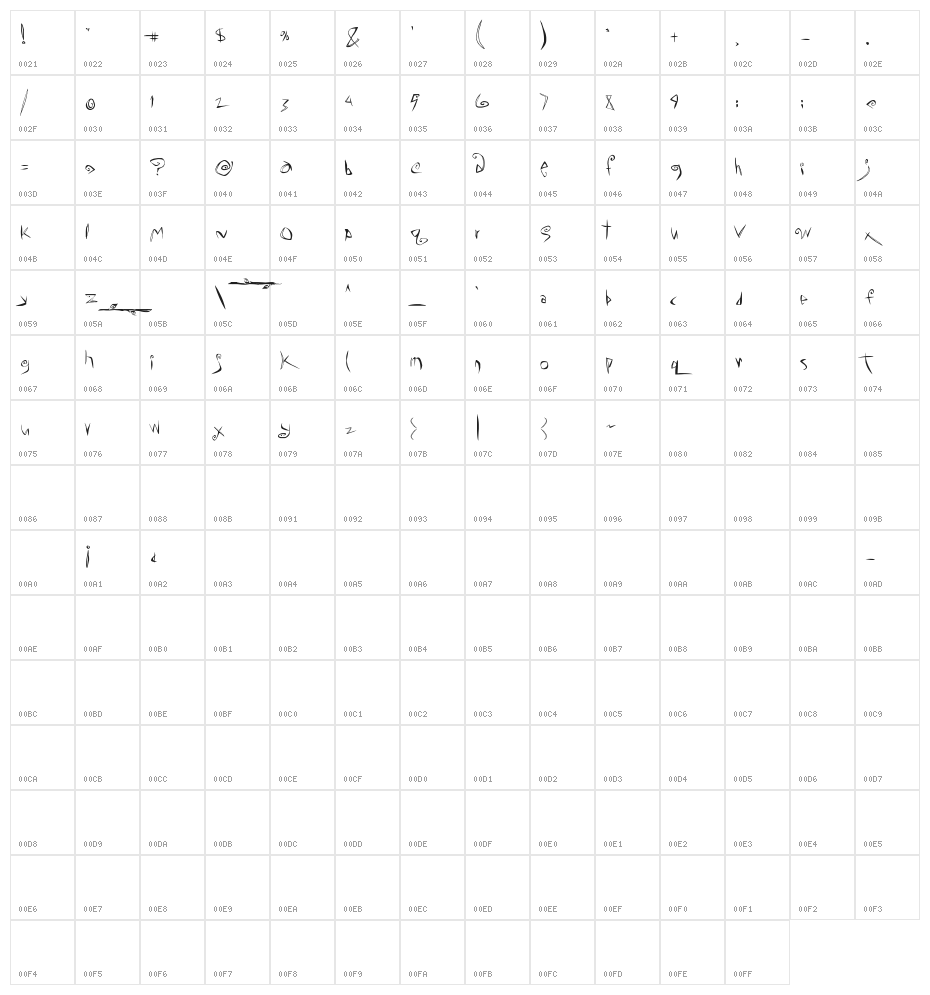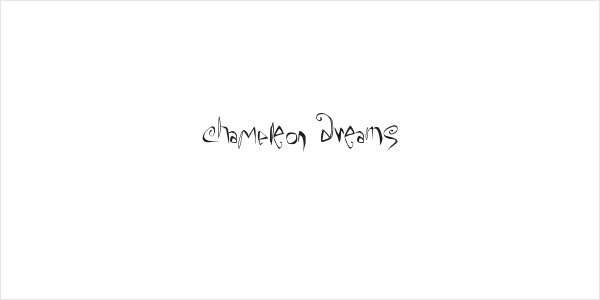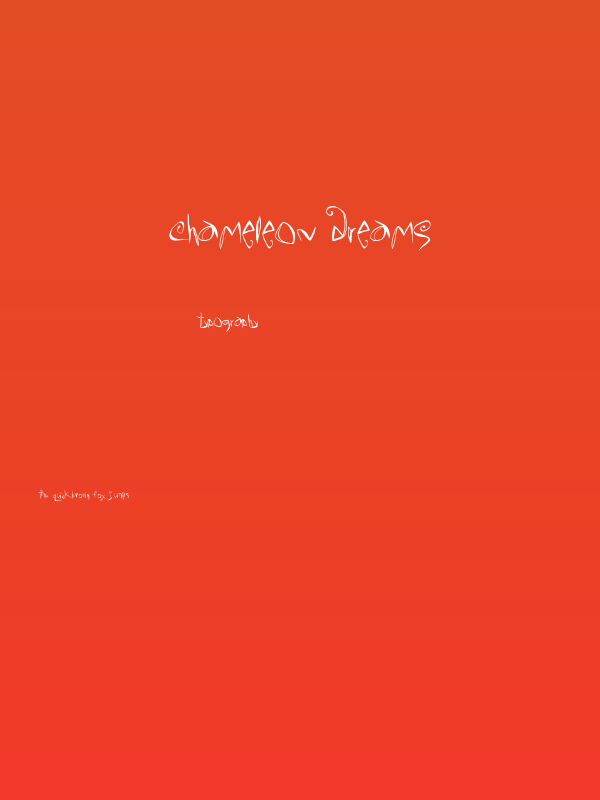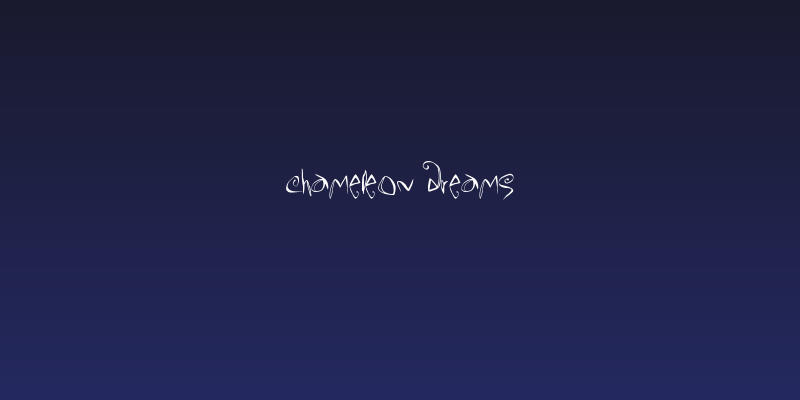
ChaMeLEon DrEamS Font
ChaMeLEon DrEamS Description
This font embodies a whimsical and artistic style, characterized by its fluid, curvy lines and playful, exaggerated forms. Each character is uniquely crafted, giving a sense of movement and creativity. The uppercase and lowercase letters share a consistent theme of dynamic strokes, while the numbers and special characters maintain the same artistic flair. The overall design is reminiscent of a hand-drawn, illustrative approach, making it stand out with its decorative and expressive nature.
| Use Case | Logos, Posters, Artistic projects |
| Proposed Projects | Ideal for creative projects such as children's book covers, fantasy-themed posters, or artistic branding materials. |